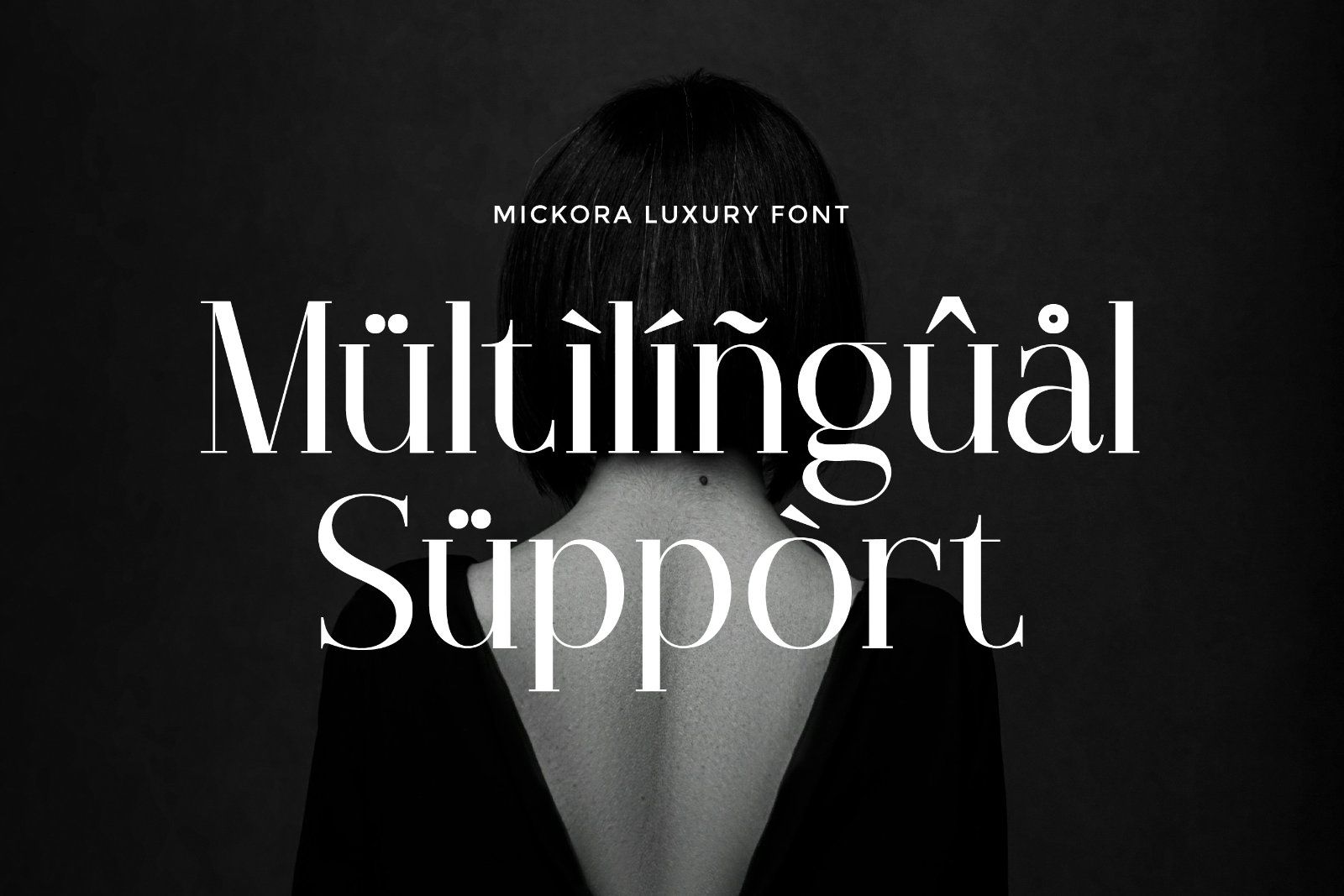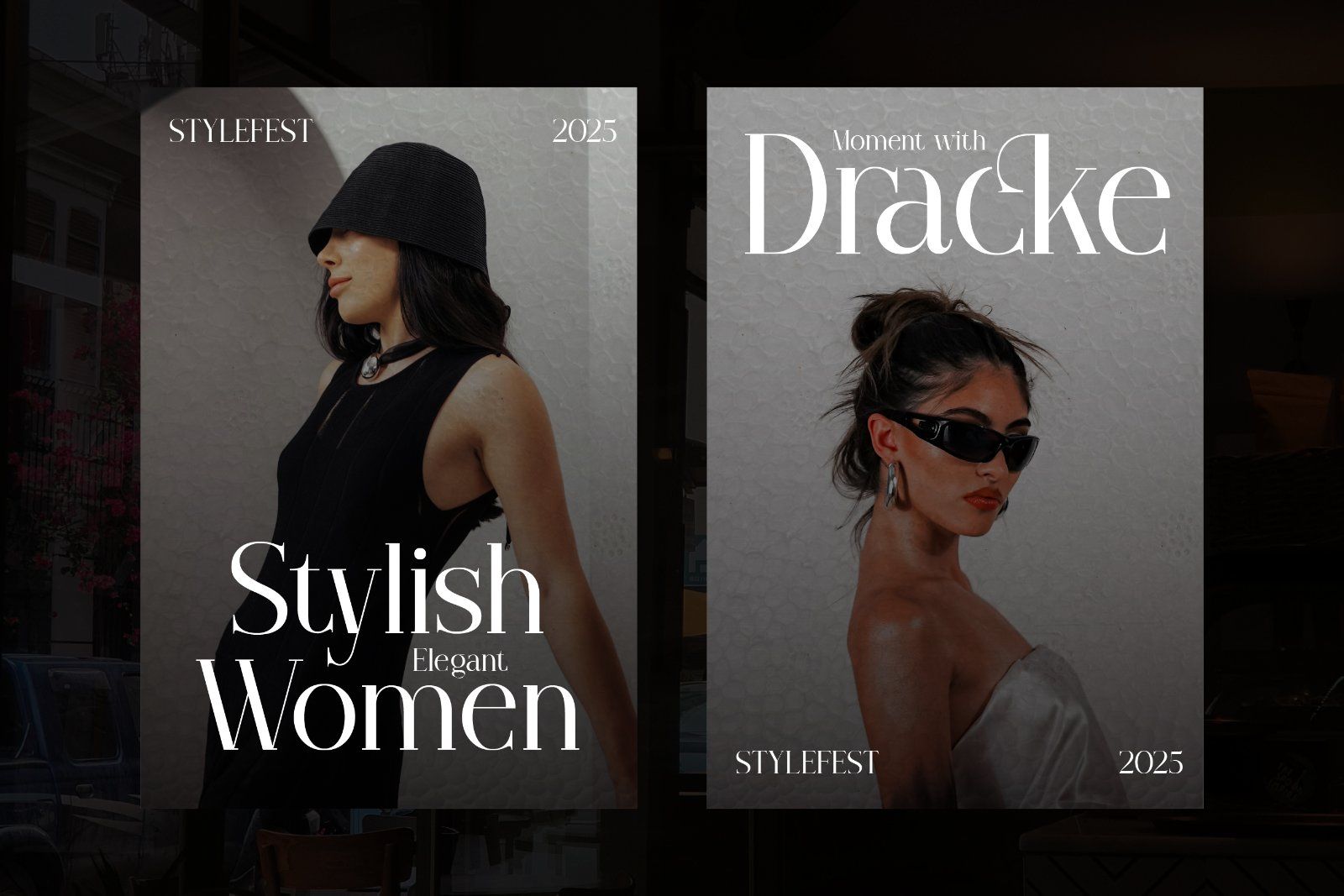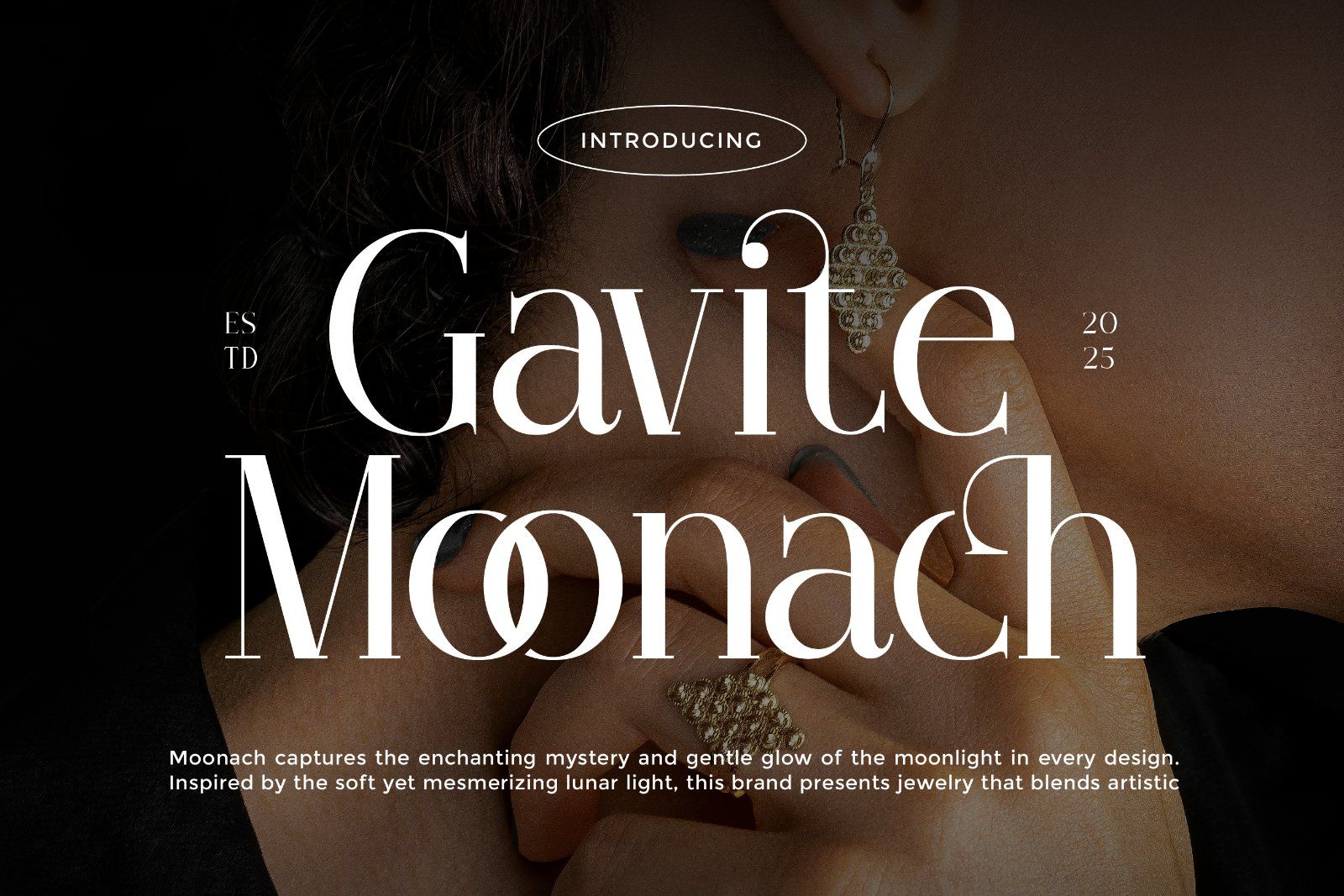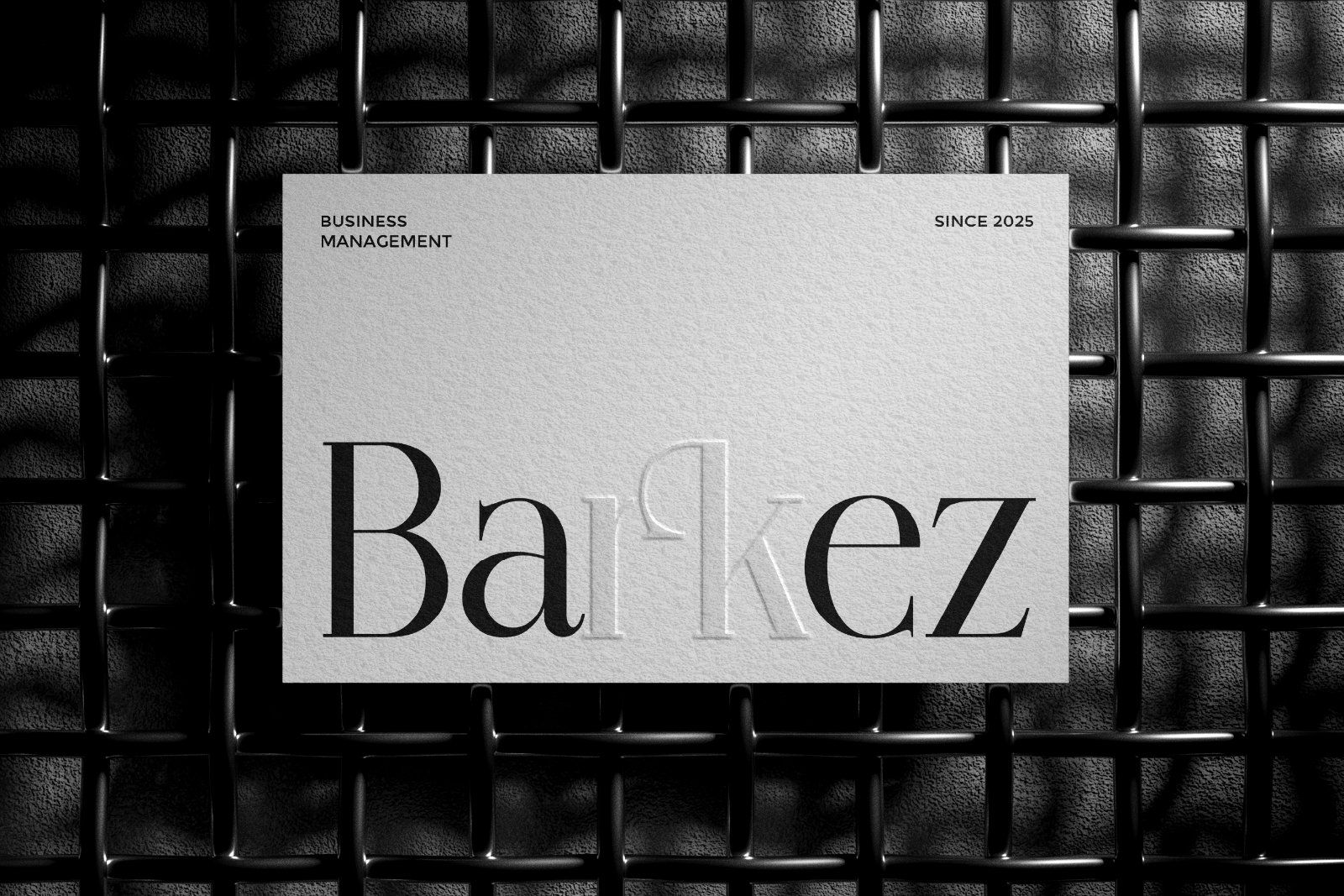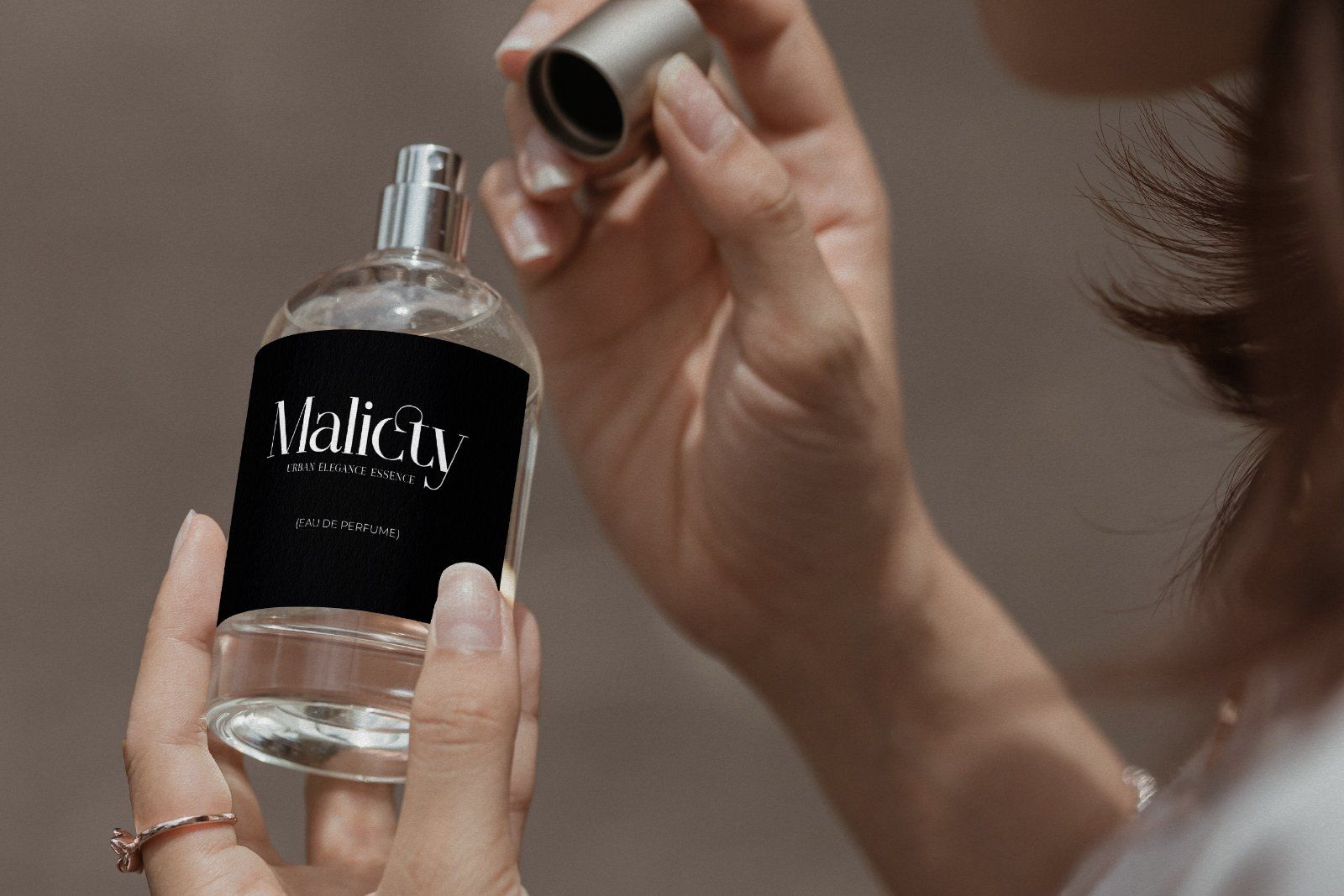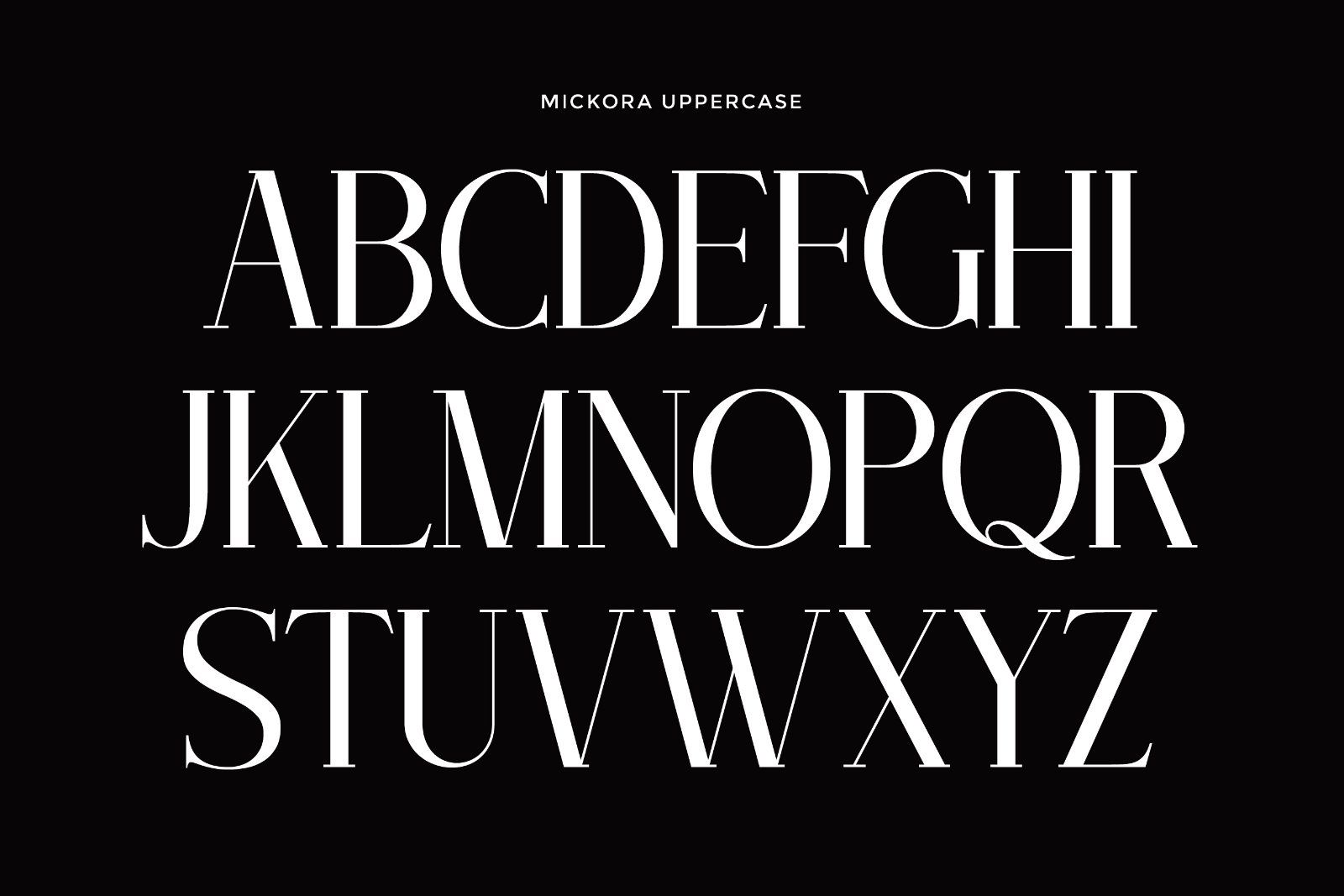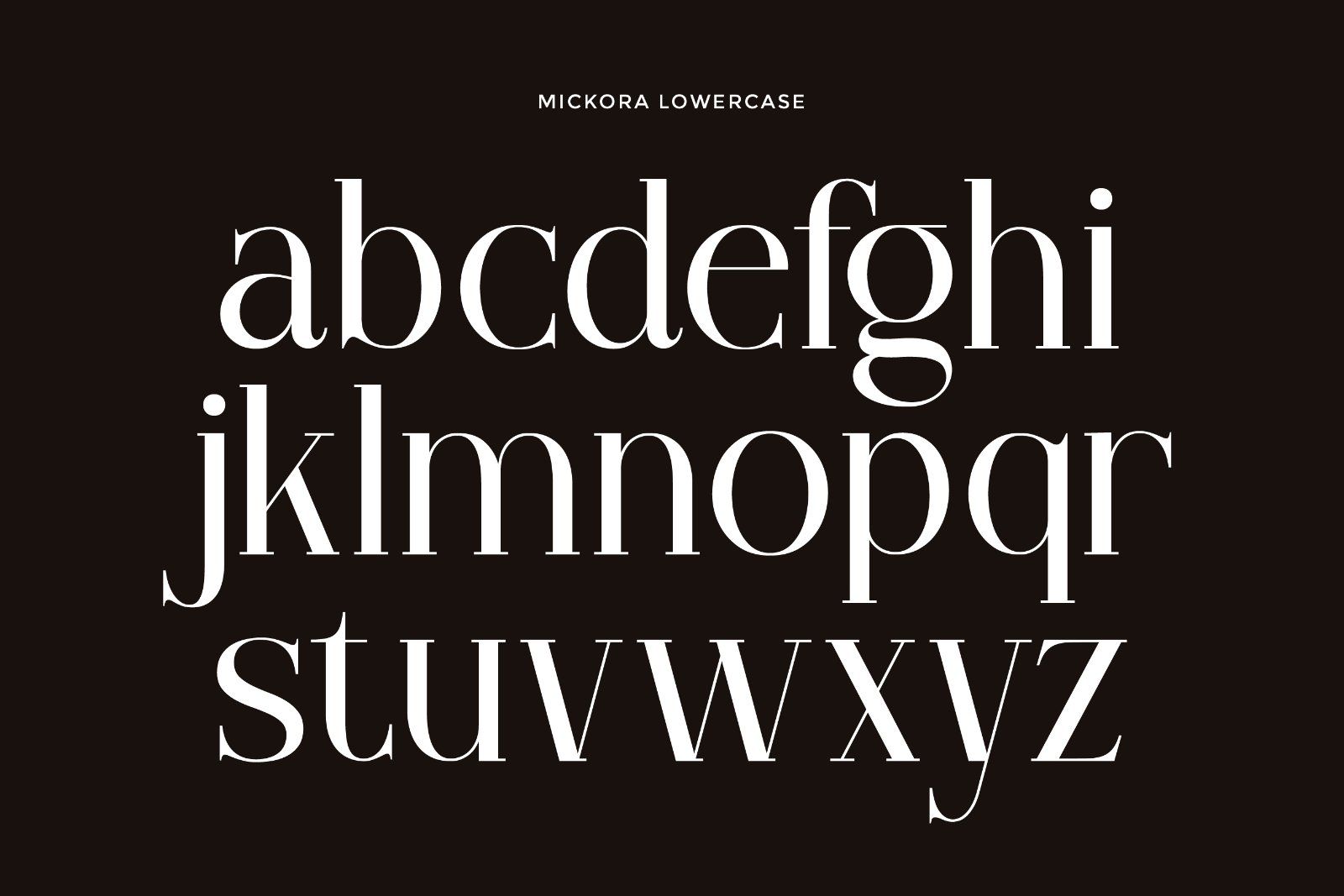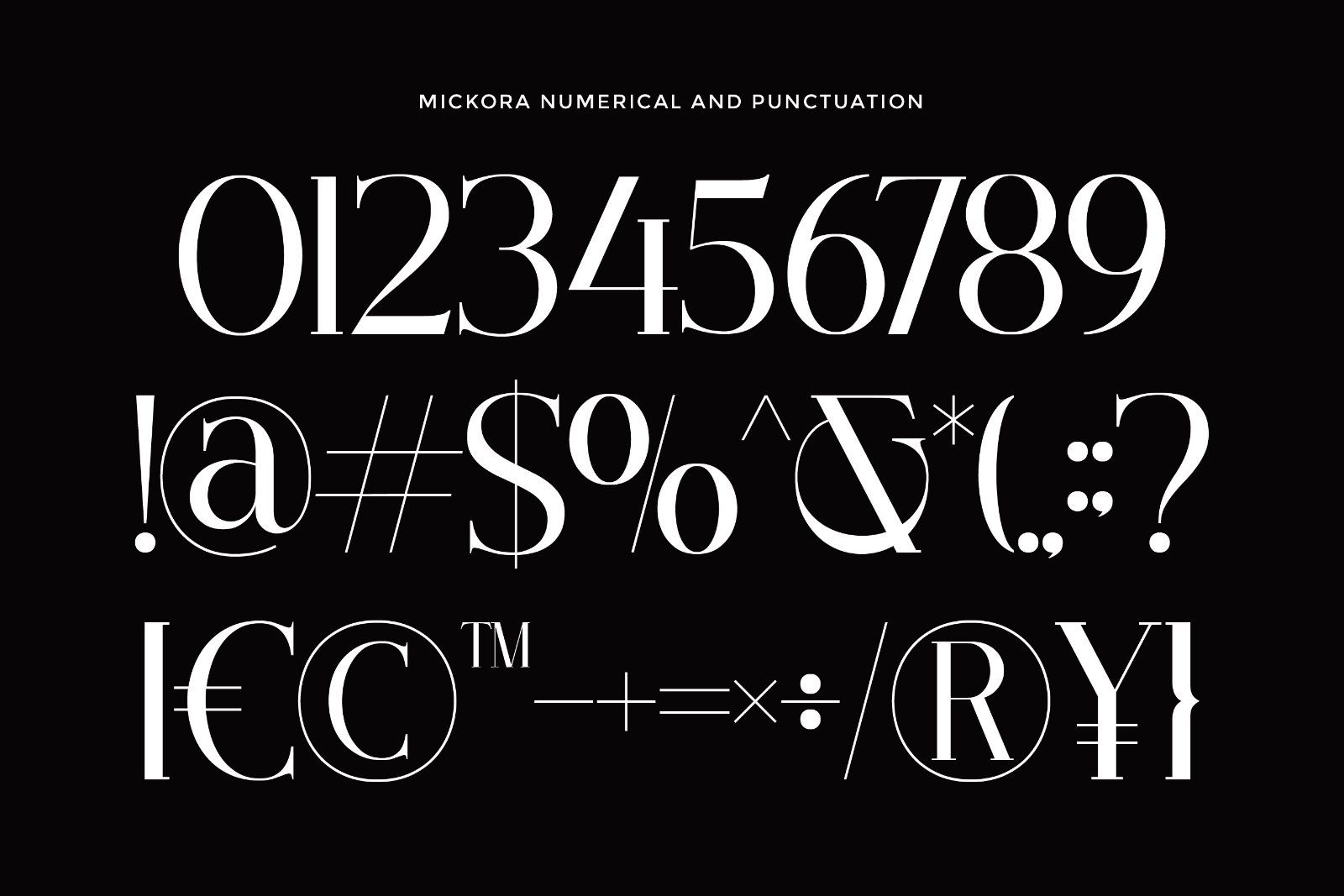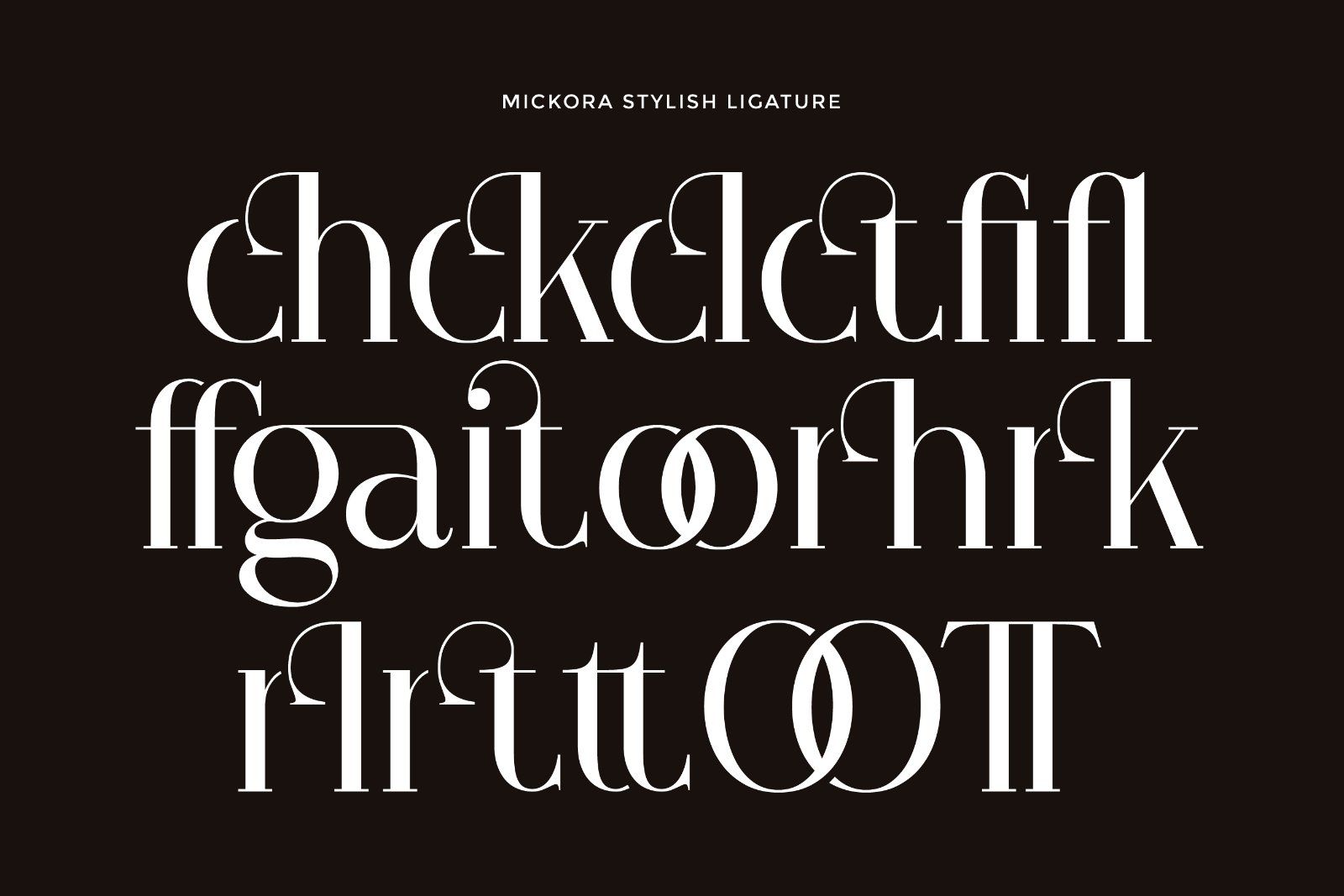
Mickora is an elegant serif font crafted to express timeless beauty and refined luxury. With its graceful curves, high contrast strokes, and sophisticated letterforms, Mickora delivers a premium look that feels both modern and classic.
• Uppercase alphabet A-Z
• Lowercase alphabet a-z
• Numbers 0-9
• Some punctuation
• Some Alternates and Ligatures